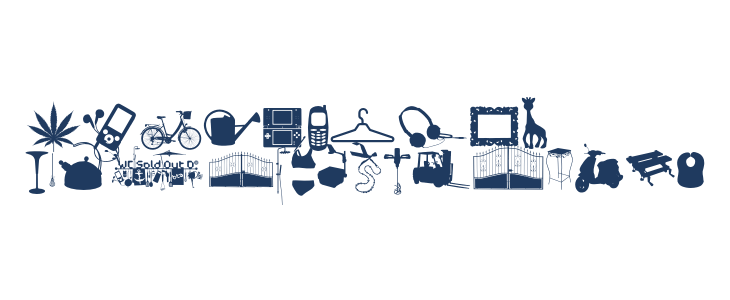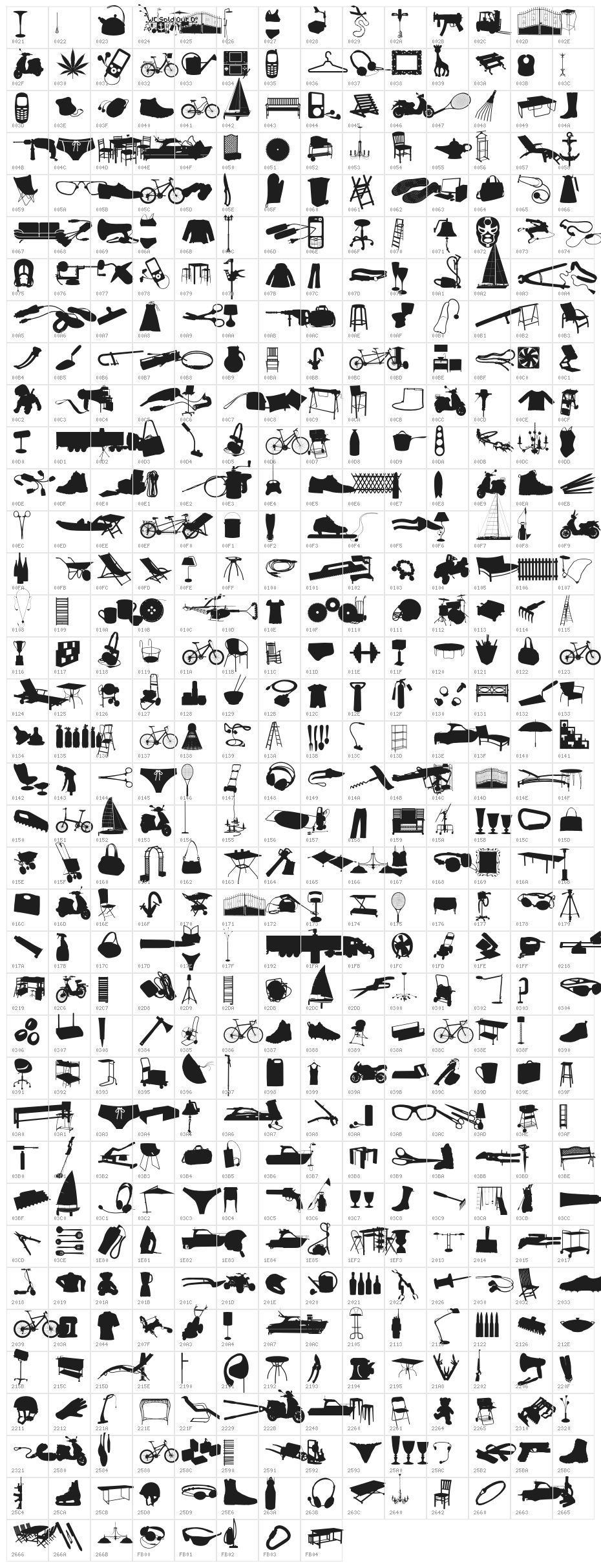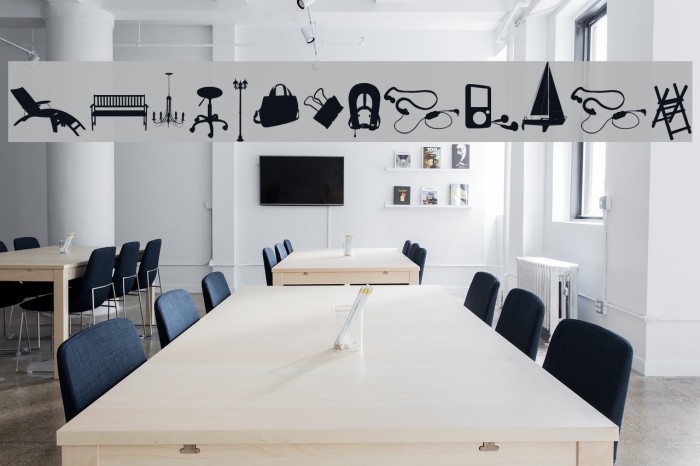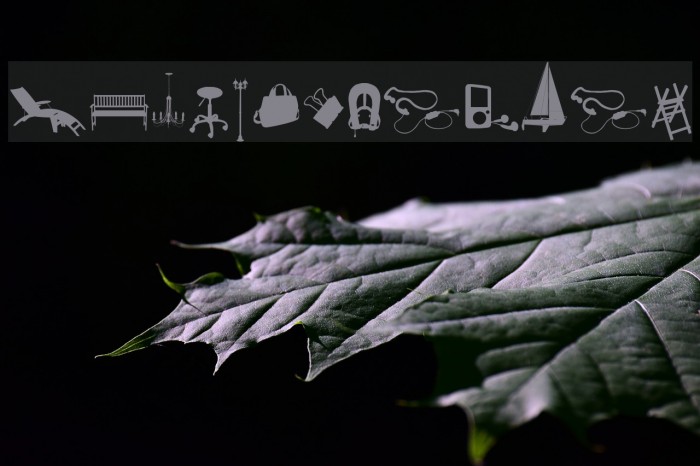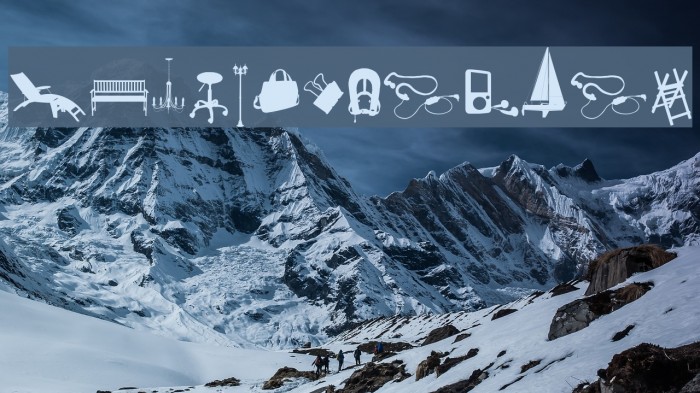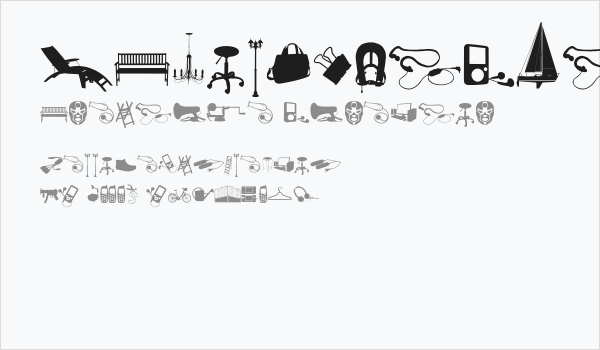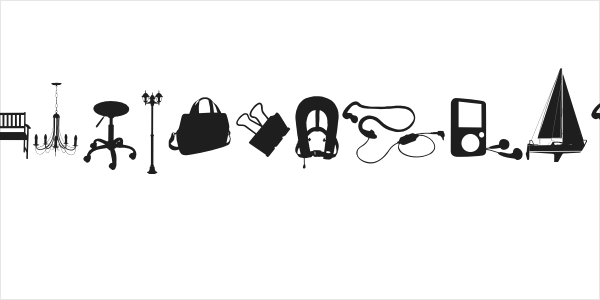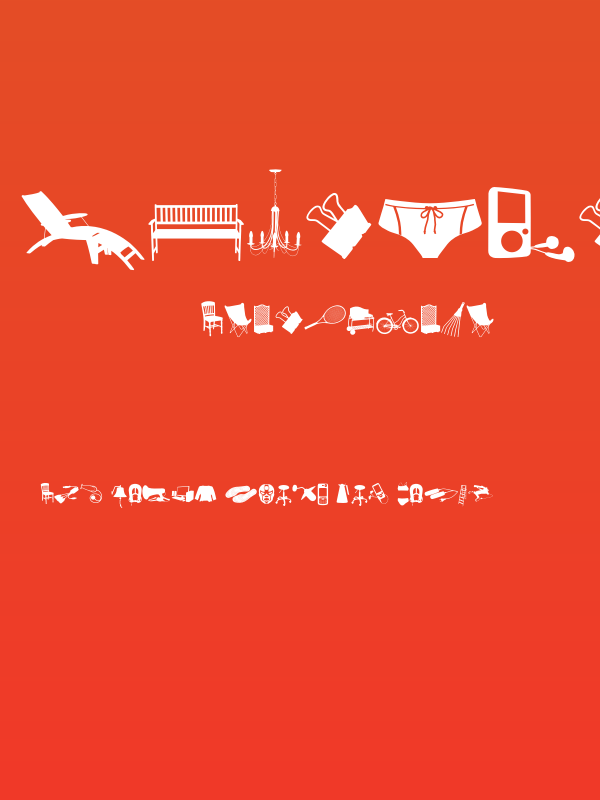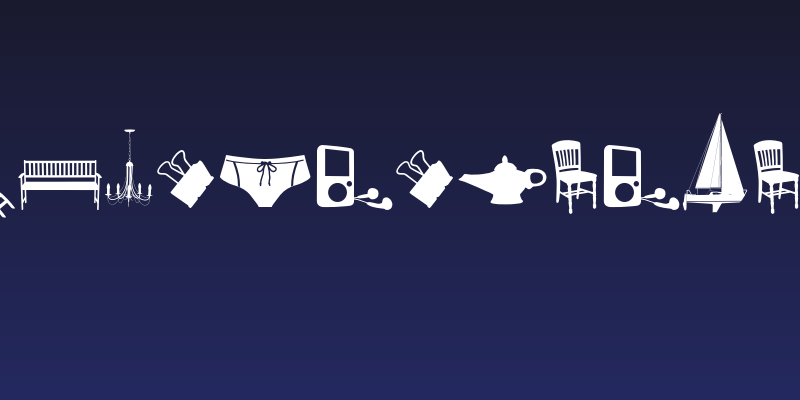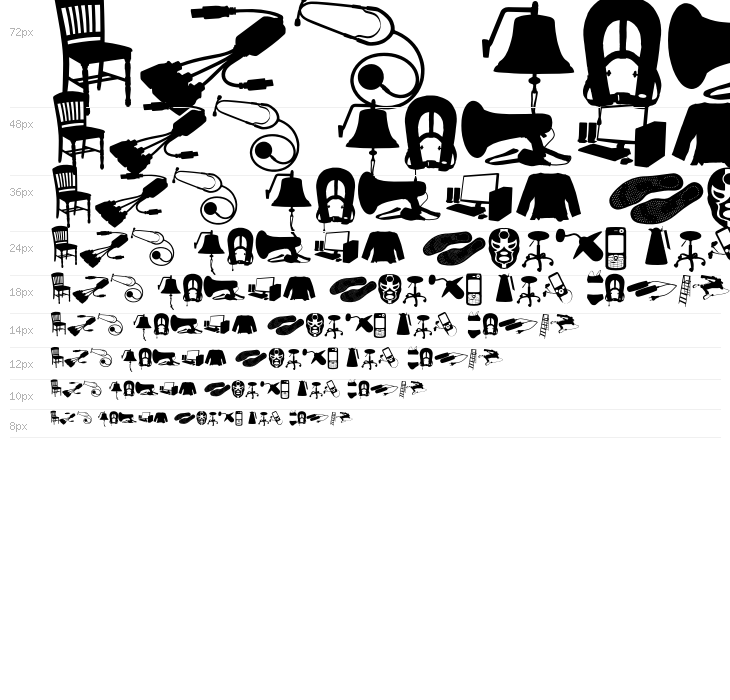
WCSoldOutDBta Font
WCSoldOutDBta Description
A decorative dingbat font composed entirely of detailed black silhouettes representing various objects, vehicles, furniture, tools, and miscellaneous items. Each character is replaced by a unique pictogram, making the set highly illustrative and non-traditional for text.
| Use Case | Icons, visual communication, creative design elements. |
| Proposed Projects | Infographics, signage, educational materials, visual aids, icon sets, creative posters. |